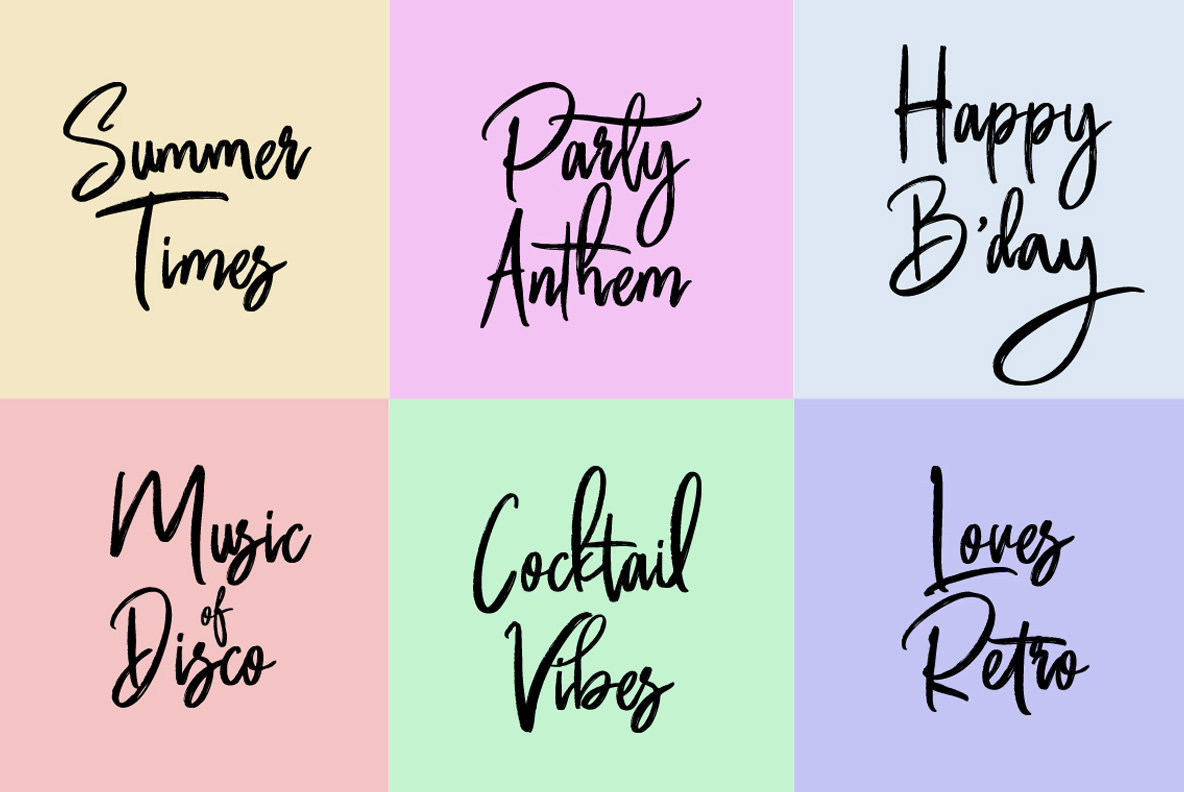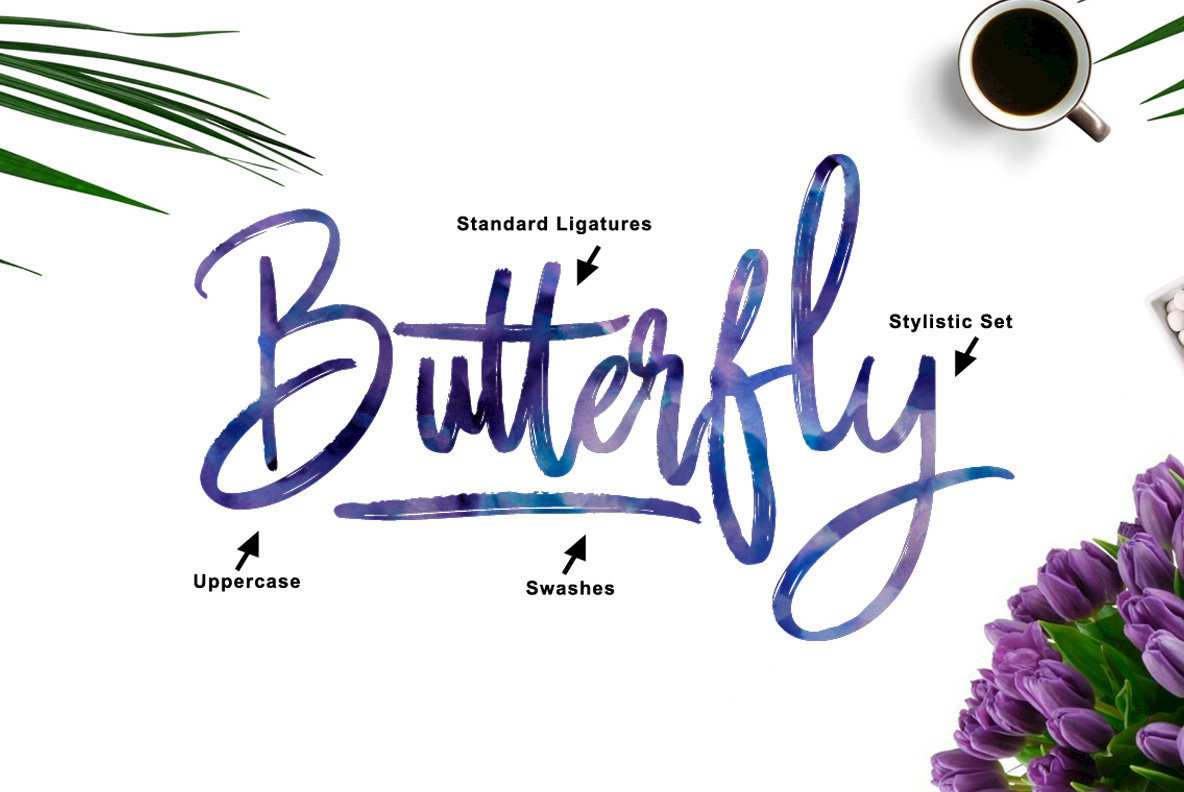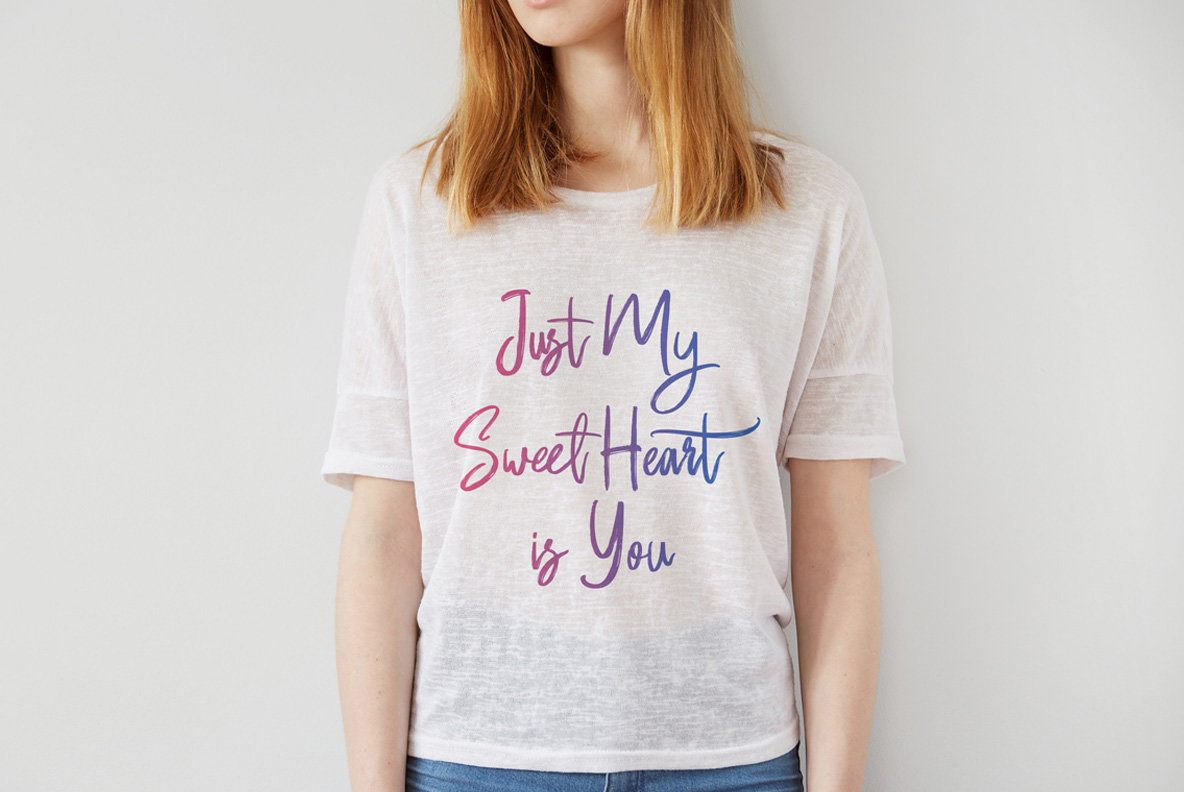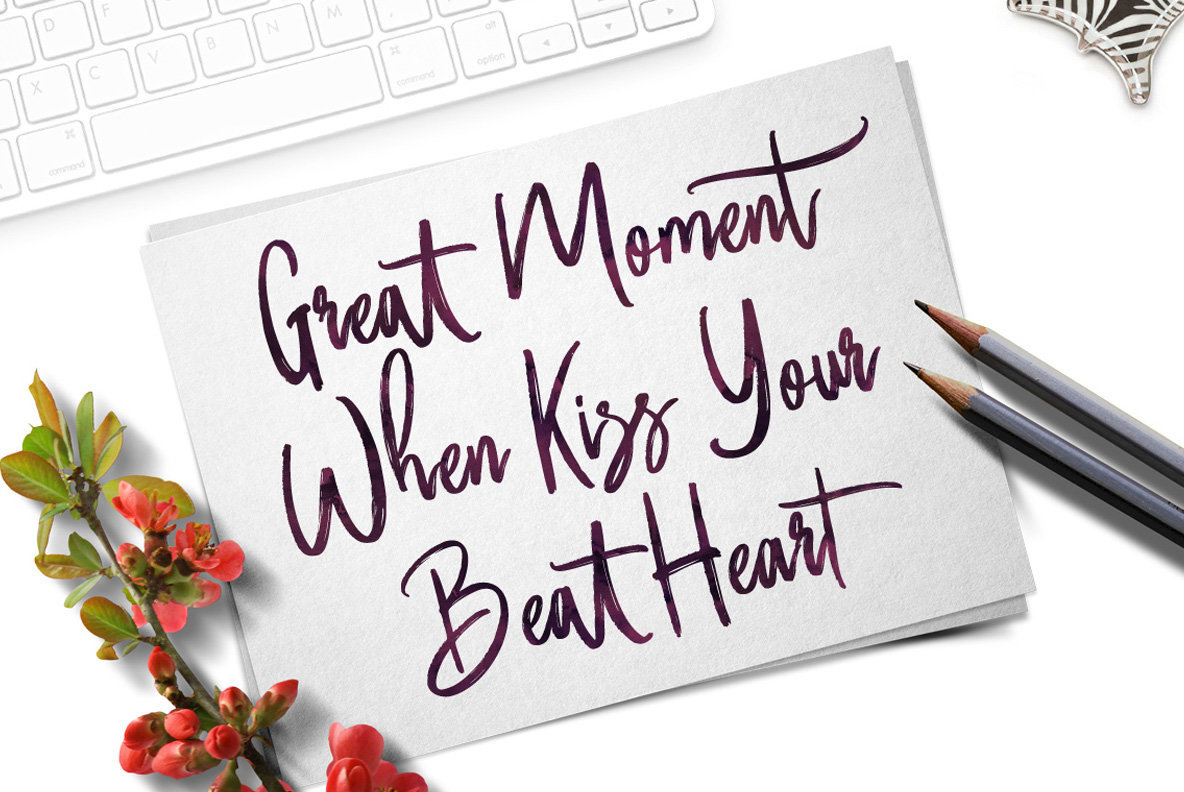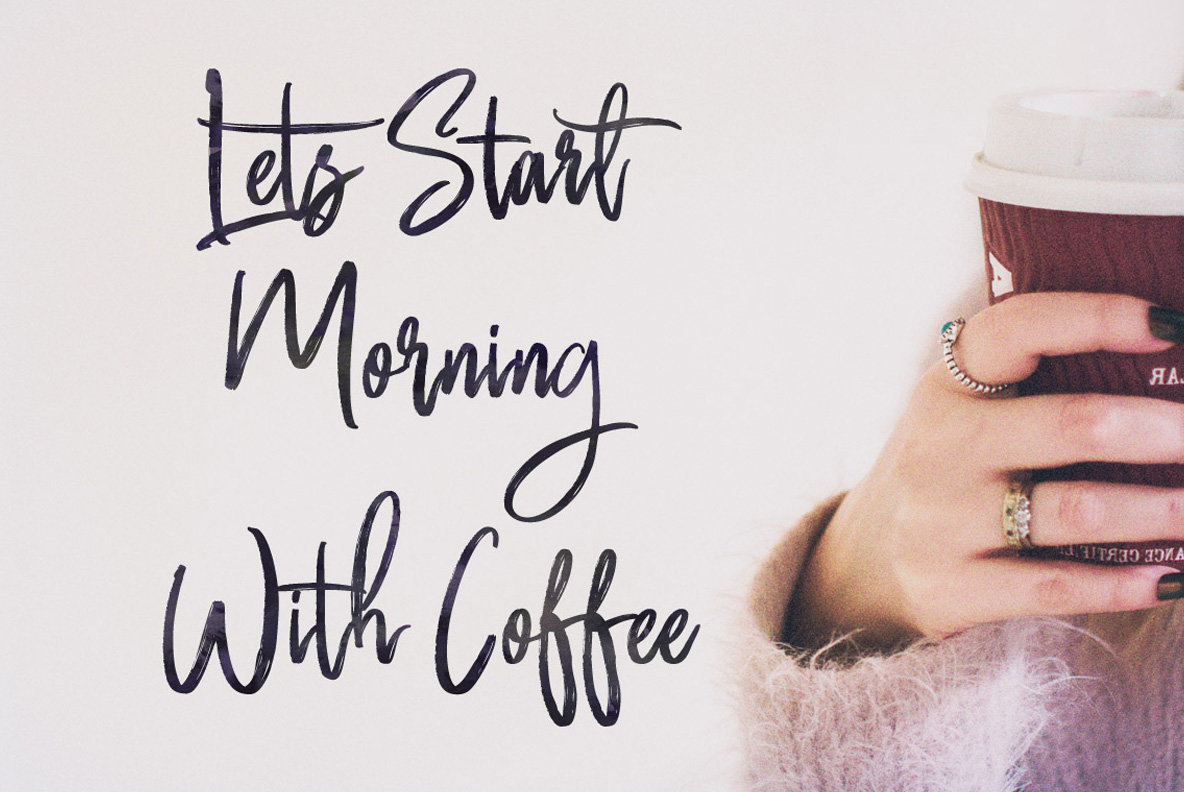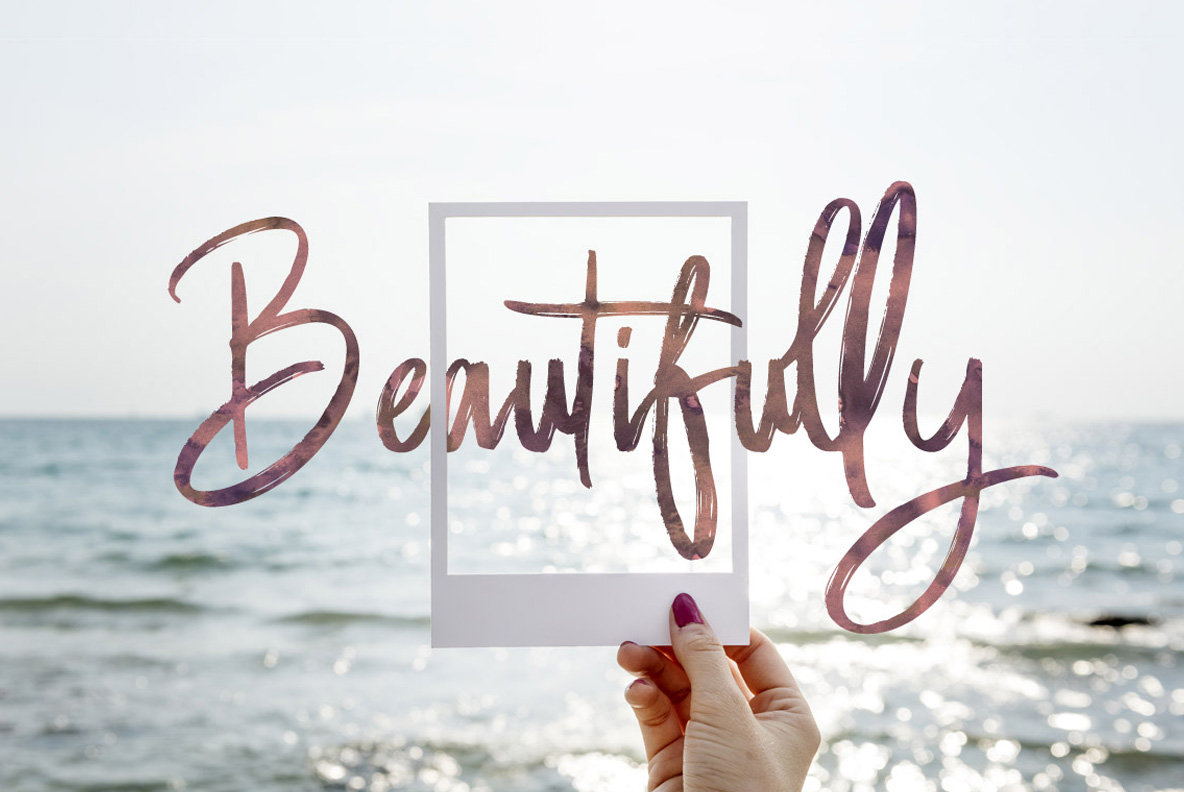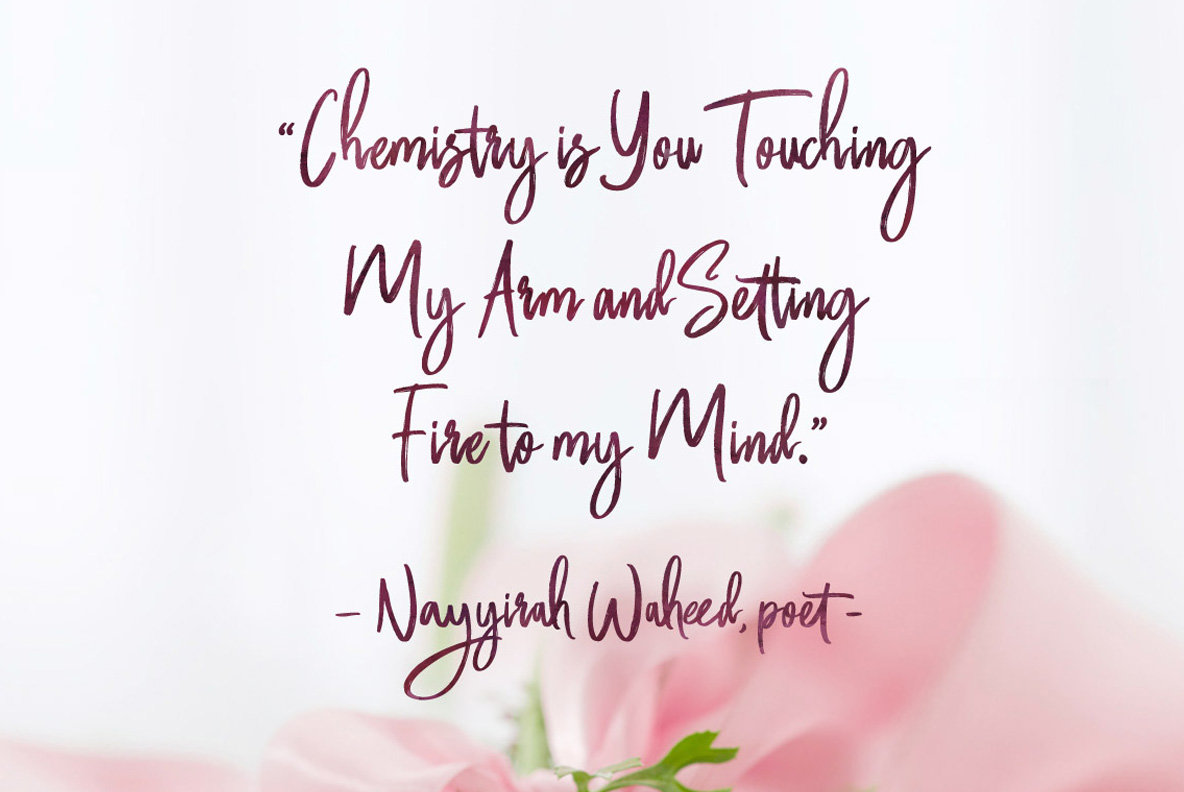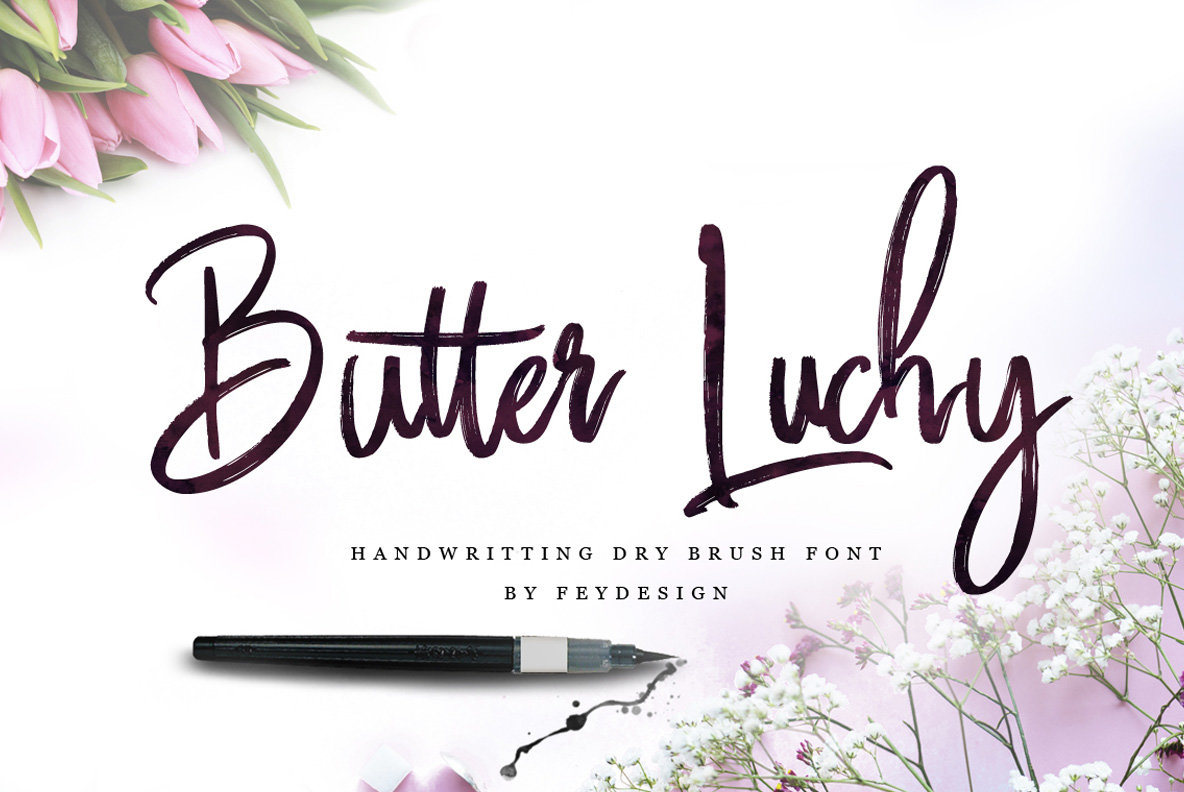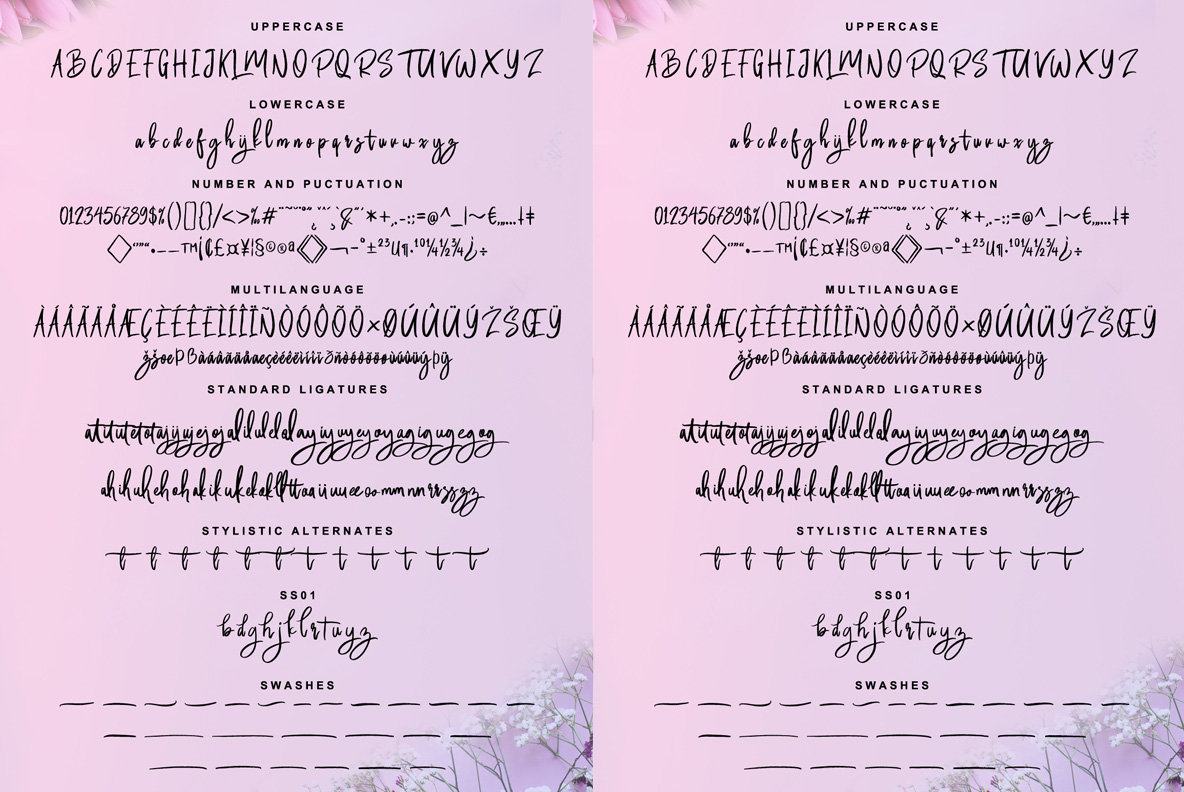
Butter Luchy Font
Butter Luchy
Butter Luchy is an enchanting handwritten script that transforms each character into a work of art. Its brush style delivers a personal touch, making it superbly adaptable for diverse projects—from creating stunning wedding invitations to crafting distinctive logos and appealing graphic elements. Whether you're designing for print or digital platforms, Butter Luchy stands ready to add charm and elegance to your work.Butter Luchy: Expressive Handwritten Brush Script